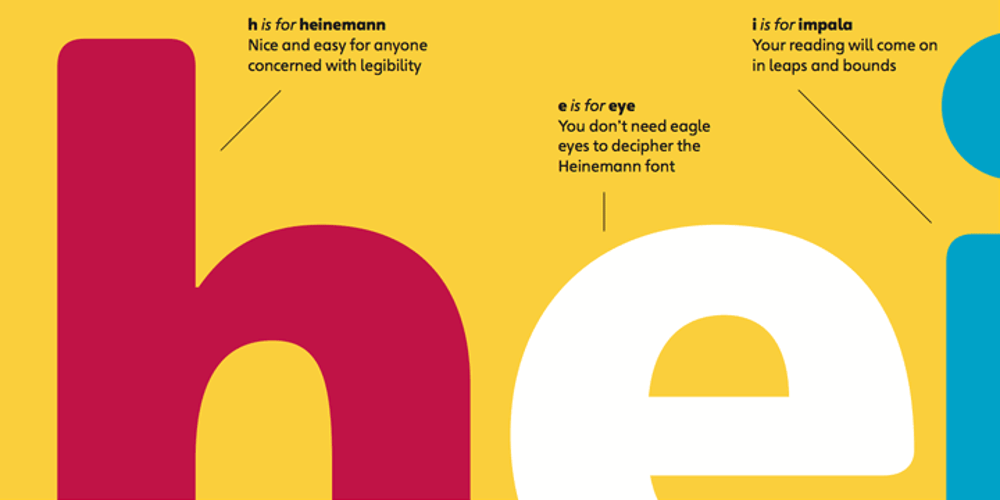
Heinemann
Heinemann font
Heinemann Font Family was designed by published by Heinemann Collection. Heinemann contains 6 styles and family package options. The Heinemann fonts were initially developed by the in-house design team at Heinemann educational publishing out of the necessity to find the perfect font for use in early primary reading books and literacy products. Basic Heinemann is defined by longer ascenders and descenders which help children to distinguish between letters; rounded edges on all letterforms help focus the reader on the individual letter shape; and modified characters (eg. a, g,) ensure instant recognition of letterforms. Heinemann Special offers further modified characters and kerning pairs ideal for dyslexic or special needs use (eg a, d, b). The Heinemann fonts were developed in partnership with children, literacy advisors, teachers of special needs/dyslexia and primary school teachers, and are now released in response to hundreds of requests from publishers, designers and teachers to purchase them. They have been trialled in schools and learning institutions over an 8 year period, and are a favorite for use in both print and electronic product. The modern, clean aesthetic of the fonts ensures that their use can span beyond educational application.